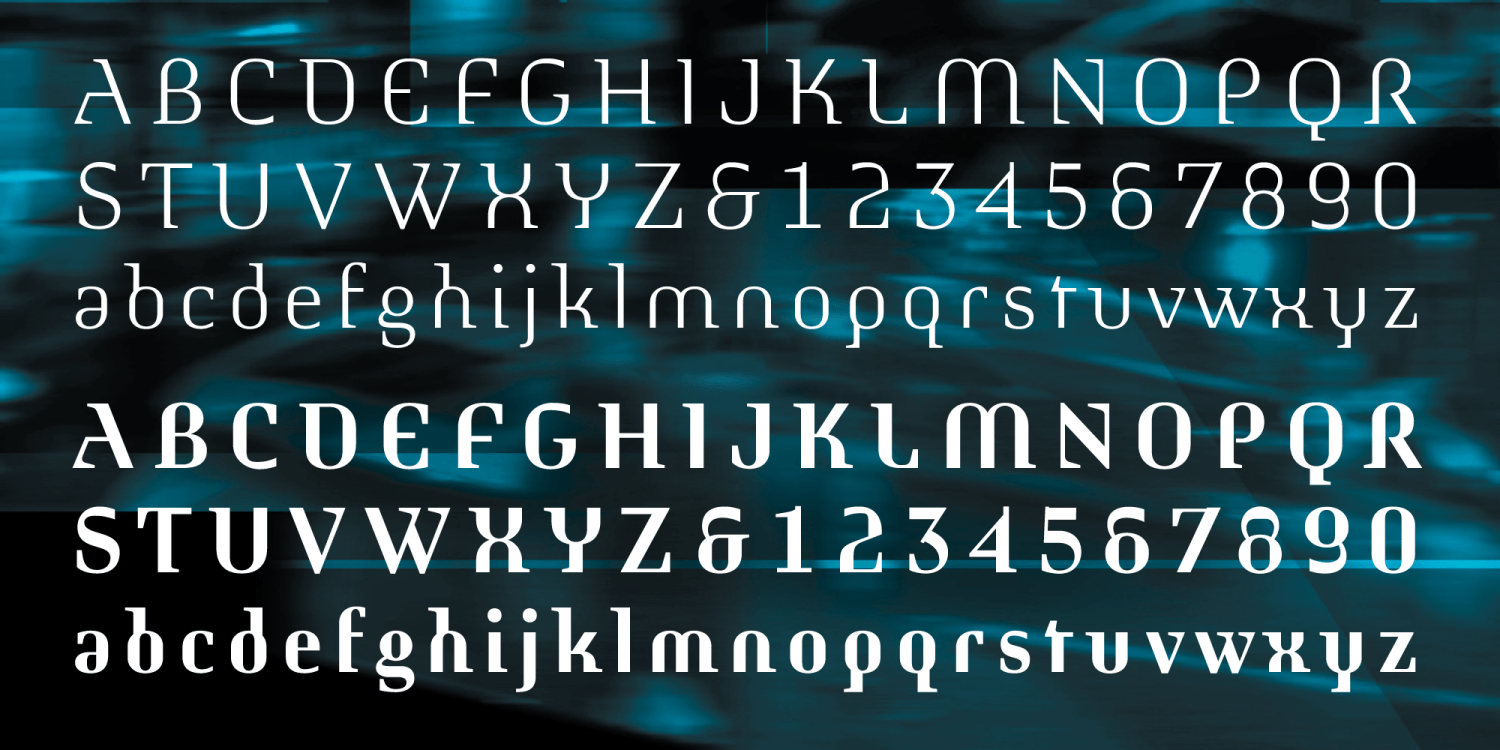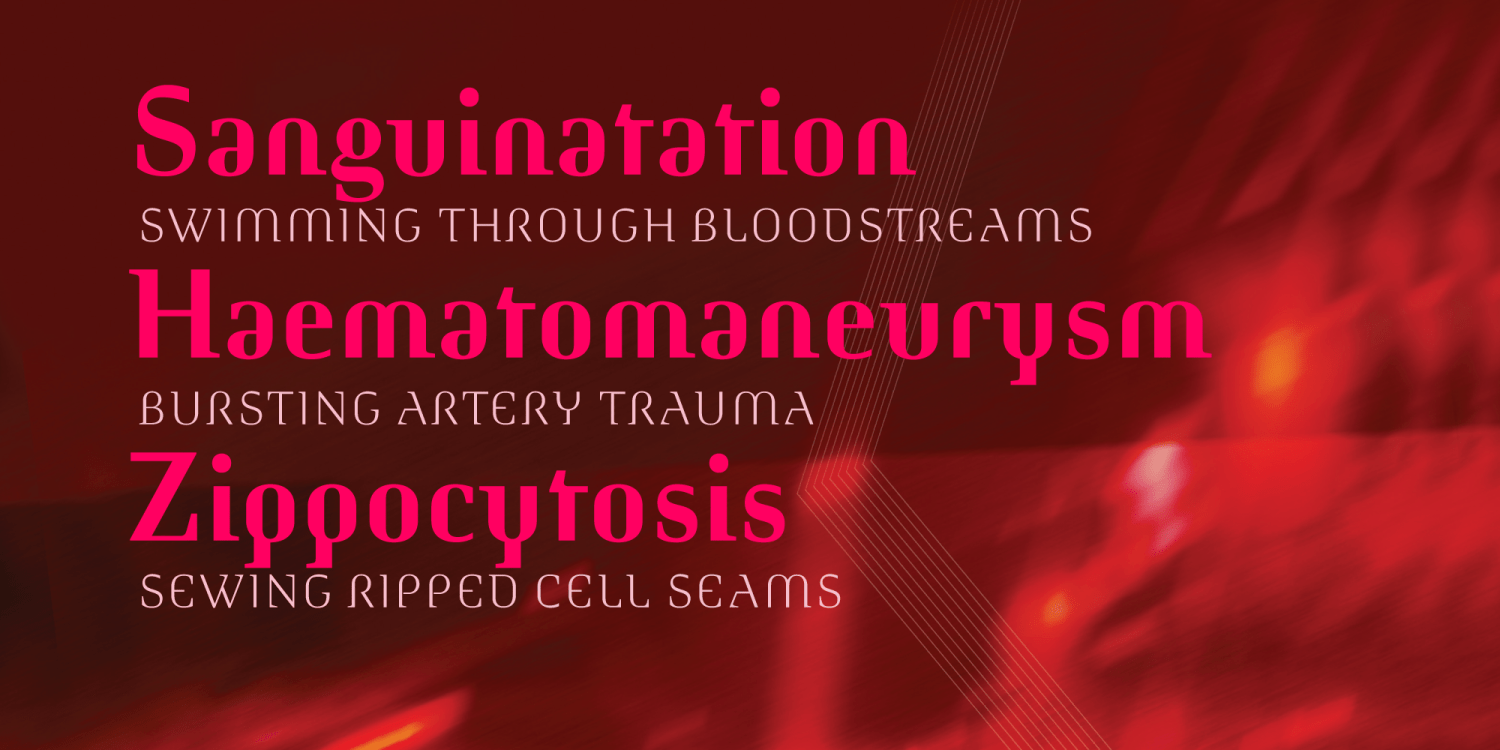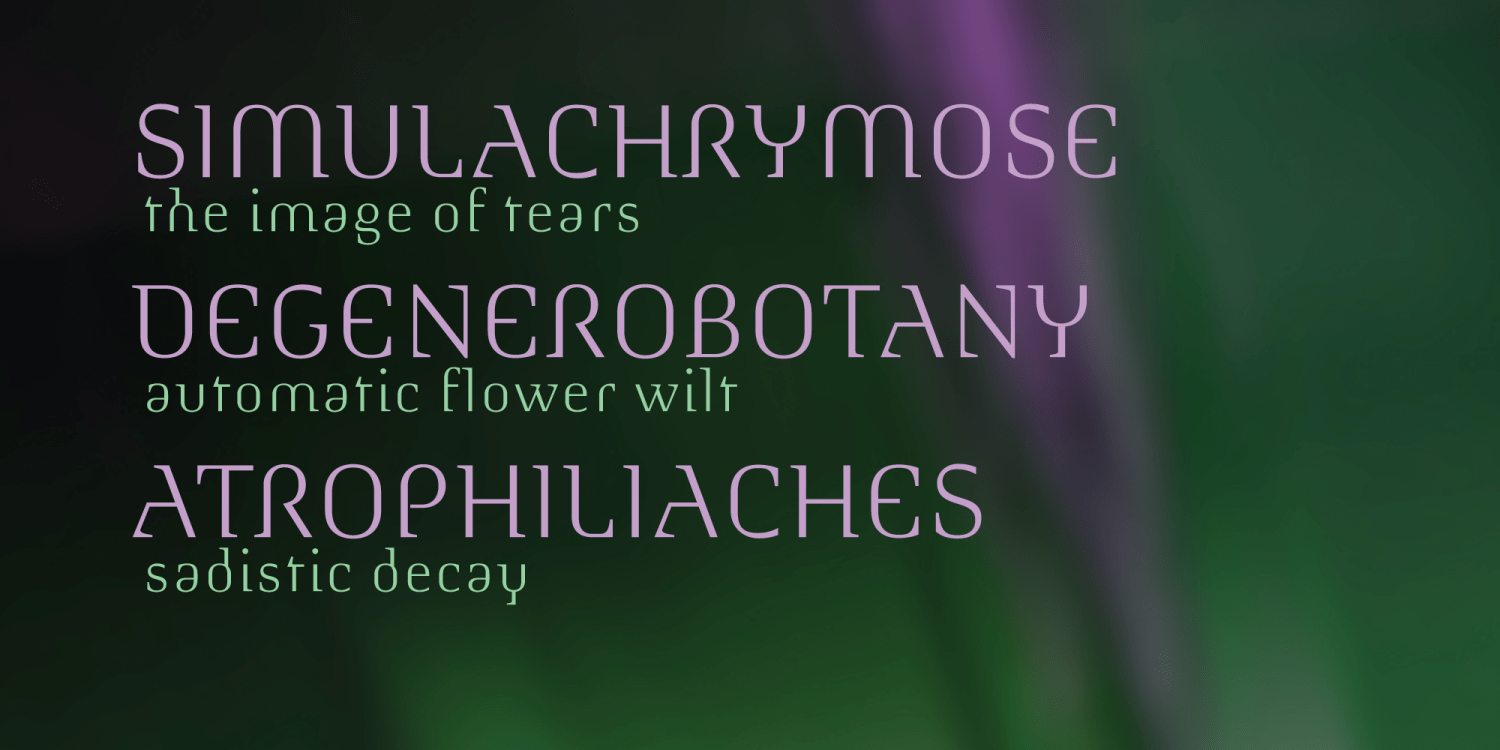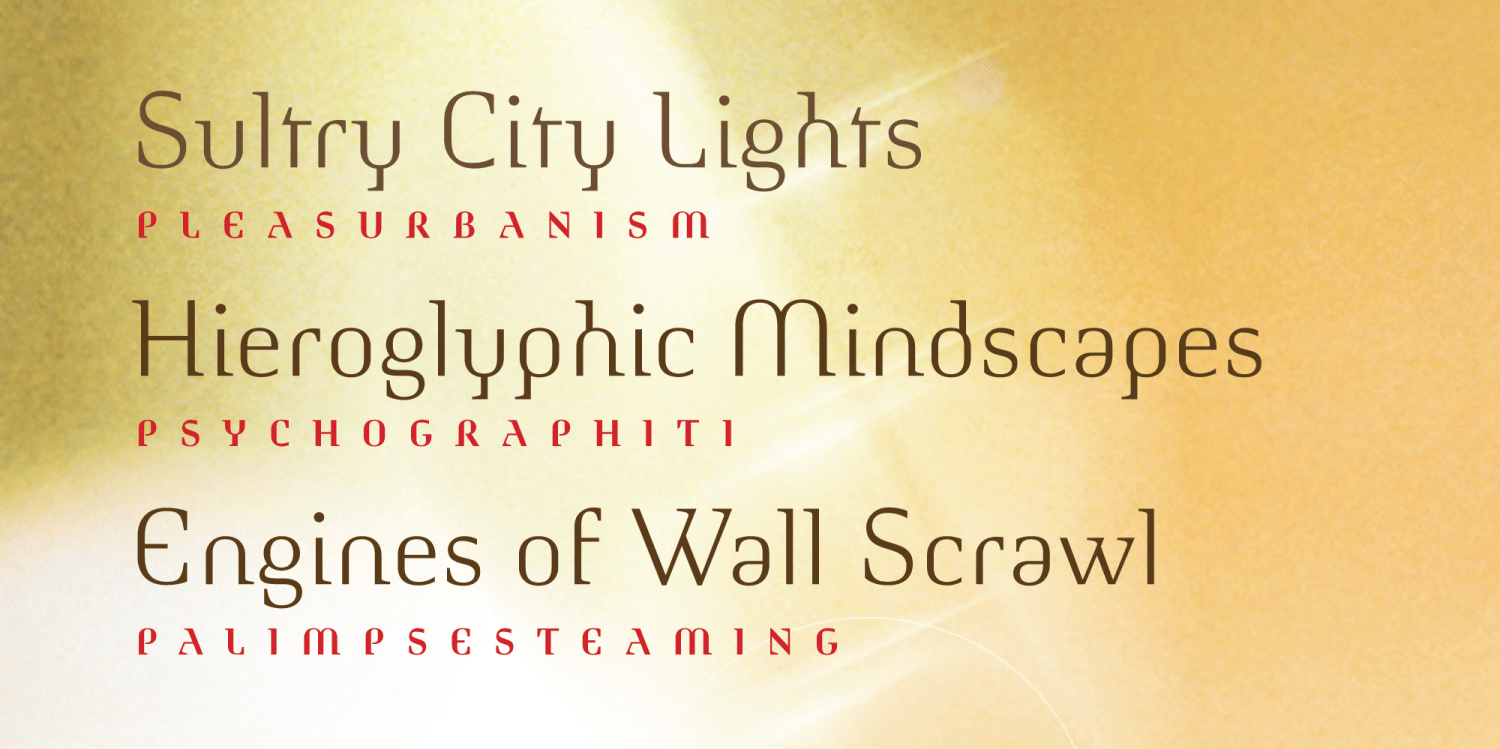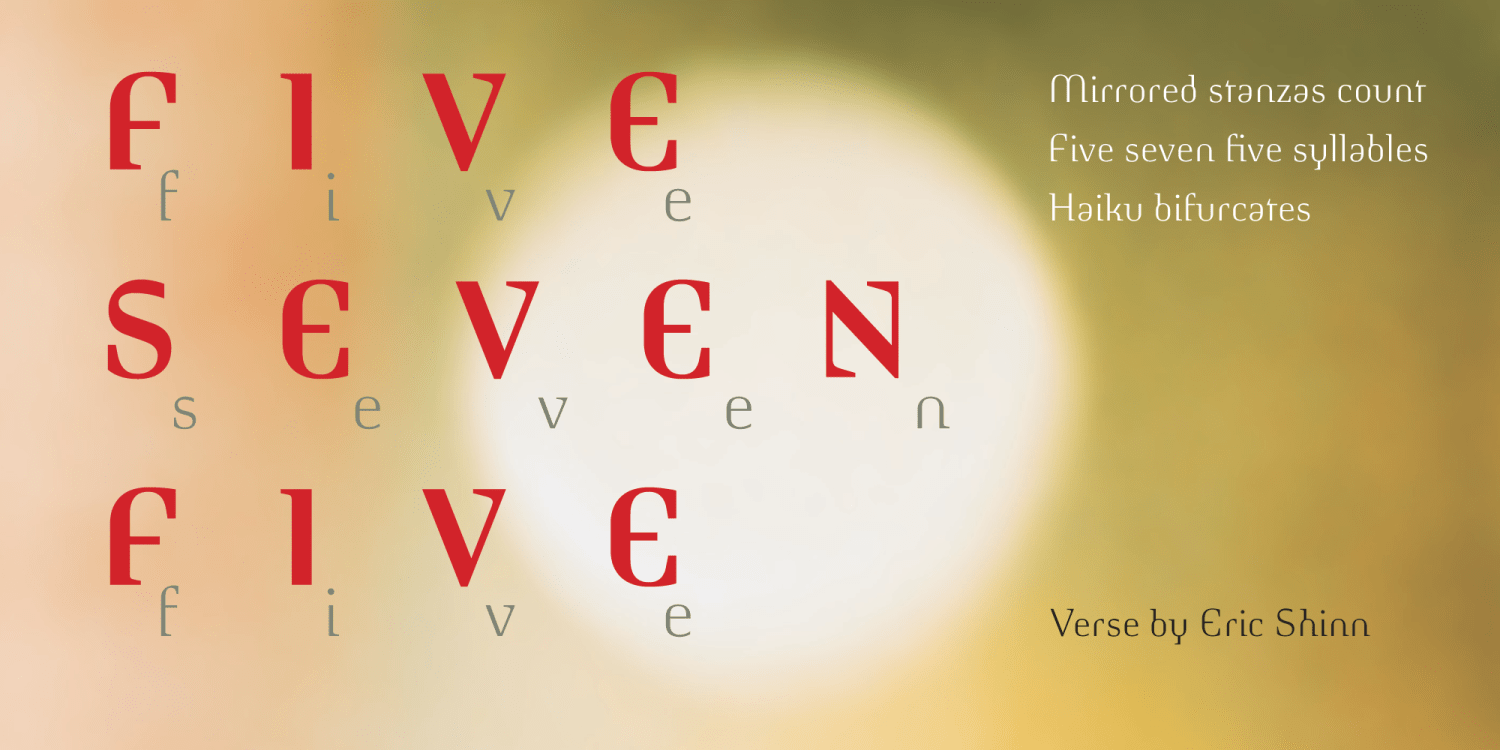
Morphica
Font Family by Shinntype
This critique of the utilitarian is a perverse and disjunctive mash-up of thematic devices: sans mixed with serif, stroke contrast applied to techno armature, body parts displaced and elided. We are asked to admire the virtuosity that conjures the sweet spot where everything blends together into some semblance of legibility, but contemplation is disturbed by the transgressive nature of the proposition.